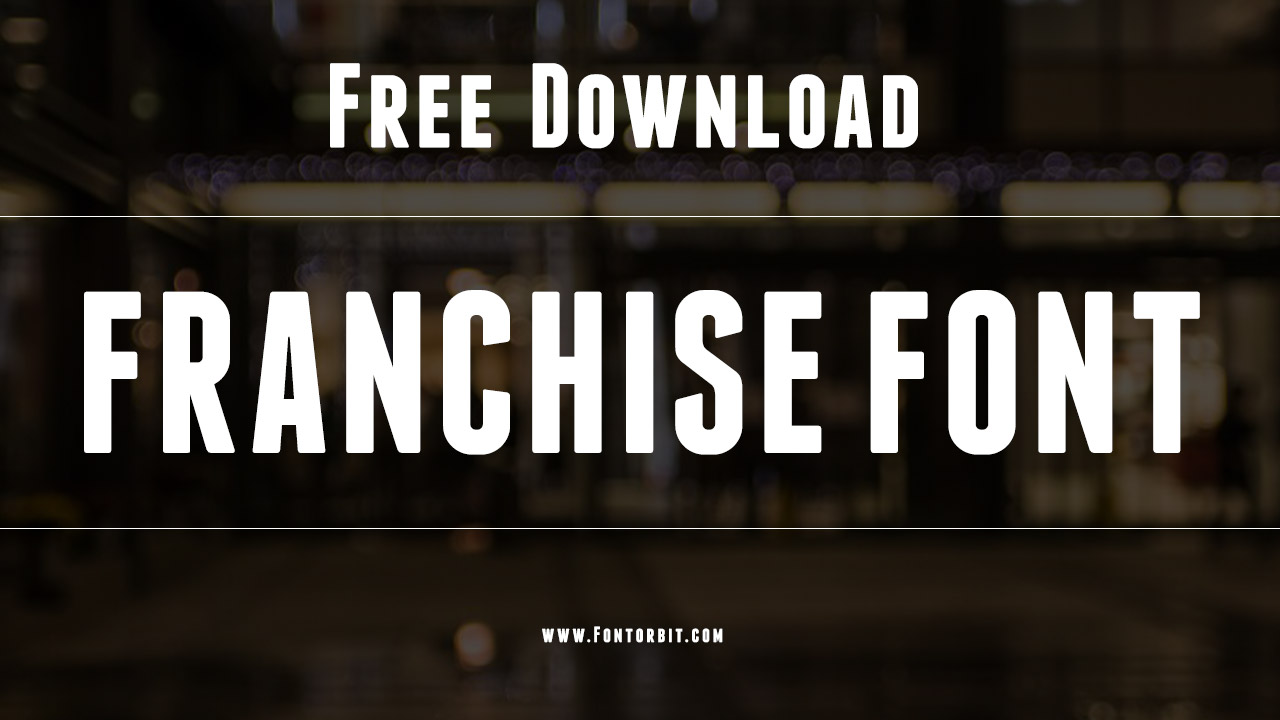
Franchise is a robust sans-serif font designed by Weathersbee Type and first published by Interrobang Type in 2006. This display font is known for its strong geometric shapes and condensed structure, making it a standout in branding, headlines, and signage.
Its clean and bold aesthetic has made it a popular choice across various industries. The font family focuses on clarity, precision, and impact, capturing attention with minimal visual noise.
The Franchise Font Family
Franchise is a minimalistic family with only two styles, making it straightforward but effective for a range of display purposes. Both versions maintain the sharp, structured appearance that defines the Franchise aesthetic.
- Franchise Bold
- Franchise Pro Light
- Franchise Pro Light Oblique
- Franchise Pro Regular
- Franchise Pro Oblique
- Franchise Pro Bold
- Franchise Pro Bold Oblique
- Franchise Pro Rounded Bold
- Franchise Pro Rounded Bold Oblique
- Weathersbee Sans Regular
Franchise is a versatile font for designs that need high-impact, clear communication. It’s best suited for:
Best Uses:
- Brand logos
- Storefront signage
- Movie posters
- Editorial headlines
- Online advertising
The Franchise font is a great choice for projects that need maximum impact with minimal distraction. Its bold and blocky design ensures that your text is highly visible and clear, ideal for any large-format use cases. Its simplicity is part of its strength, offering designers a reliable tool for professional, clean-cut typography. Despite its minimalistic family, the font manages to be versatile enough for both digital and print applications.
2. Does Franchise Work Well For Body Text?
No, Franchise is designed primarily for display purposes, such as headlines and logos, and is not suitable for extended body text.
5. What Fonts Pair Well With Franchise?
Serif fonts like Merriweather or Georgia often pair well with Franchise for a balanced design.
6. What Design Projects Benefit Most From Franchise?
Franchise excels in advertising, branding, logos, and any large-scale display text where readability is key.